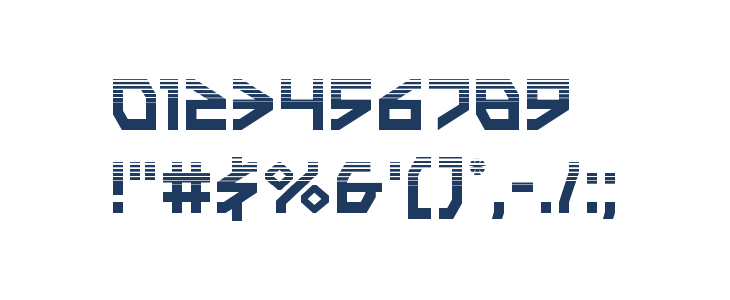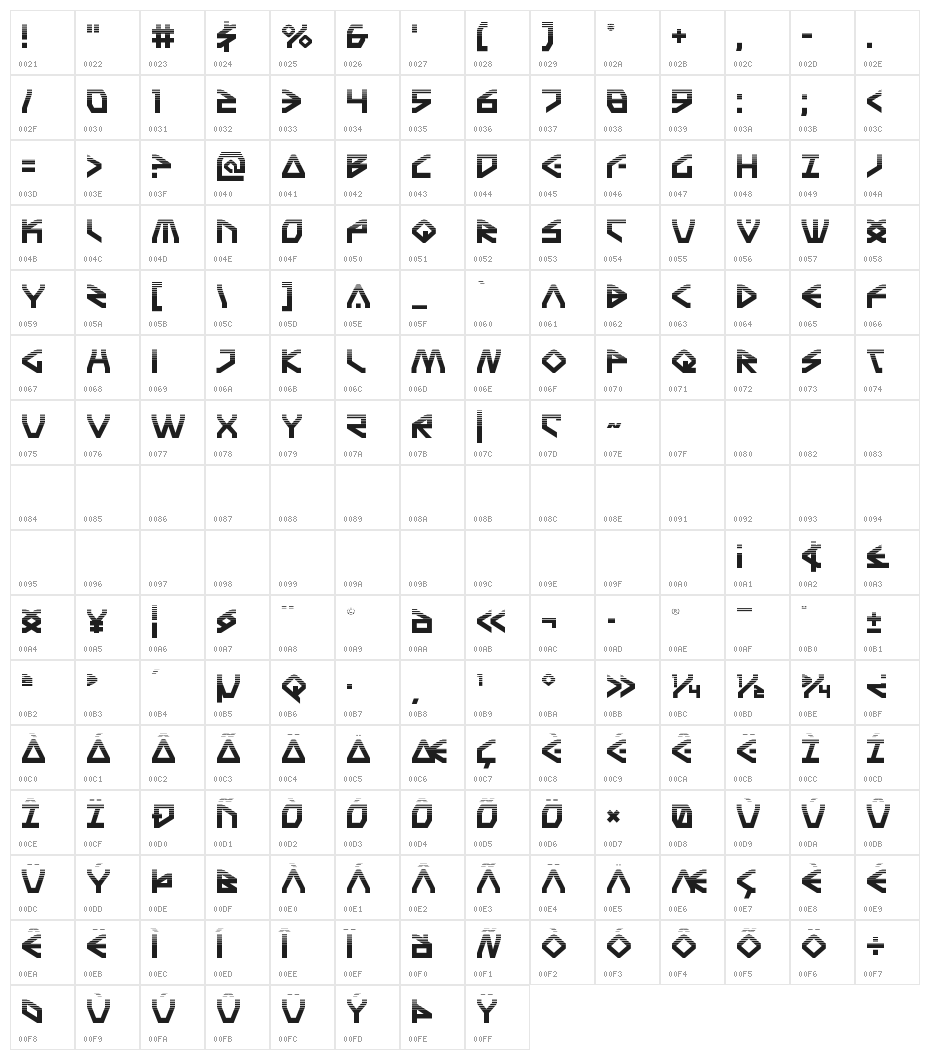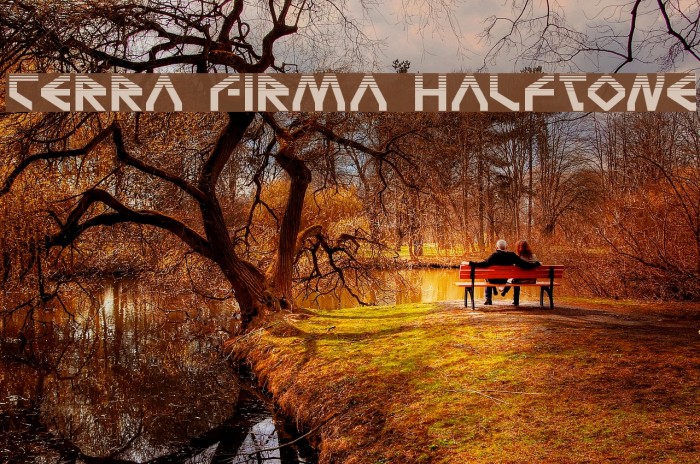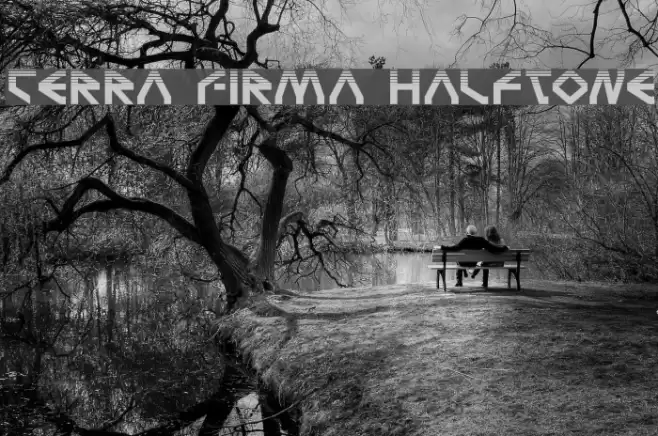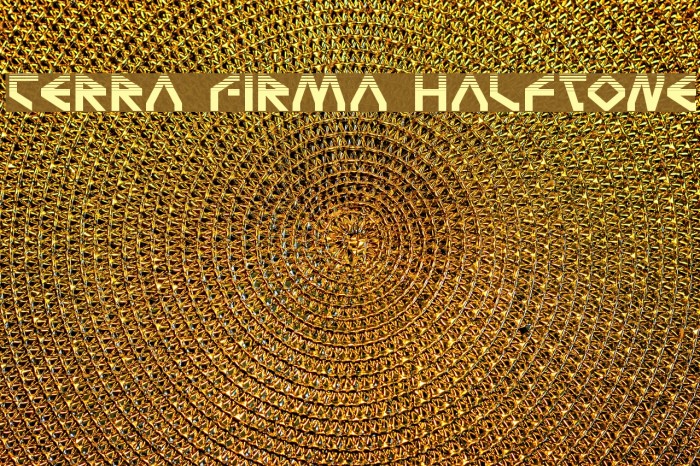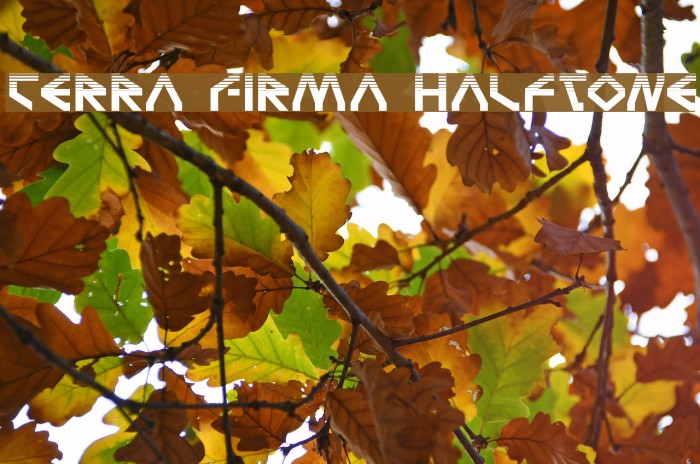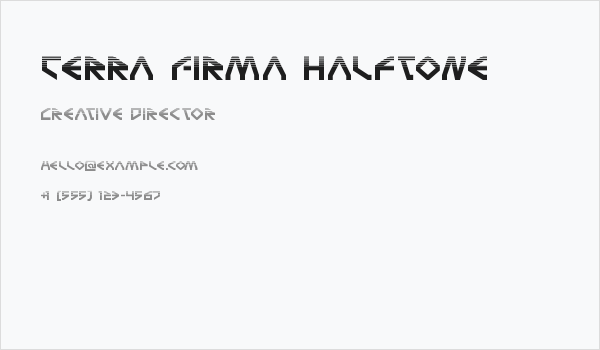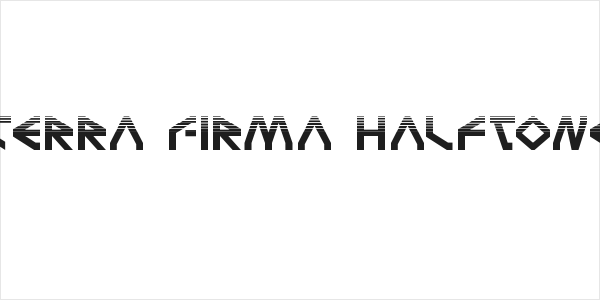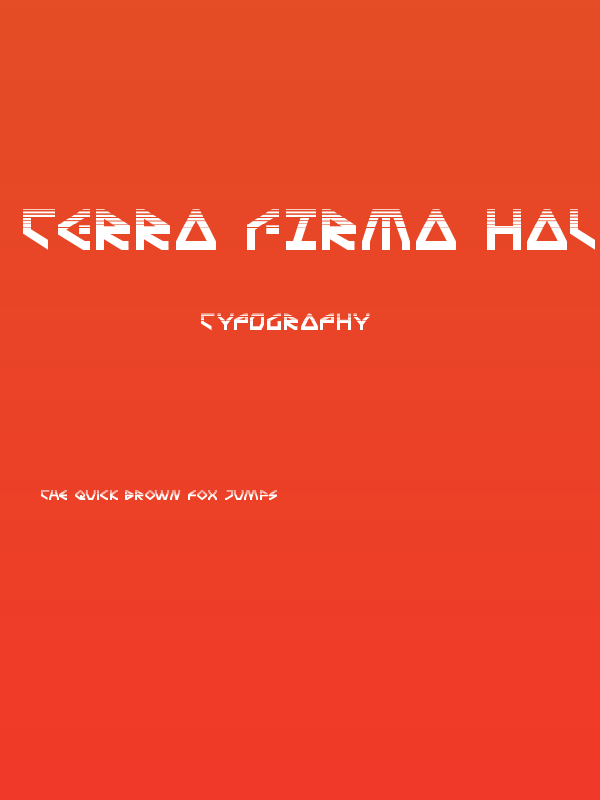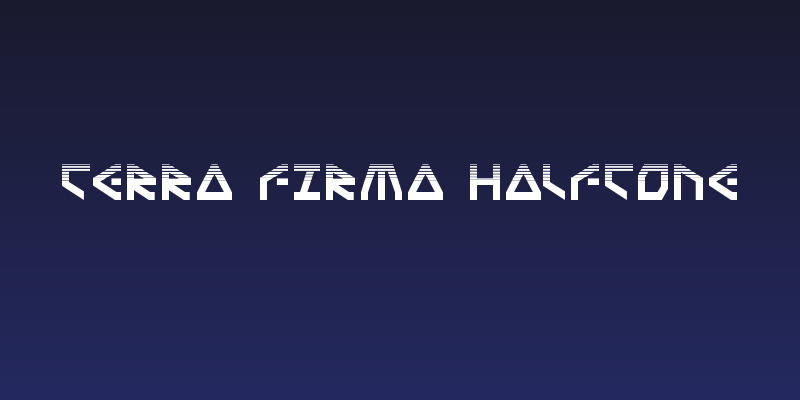
Terra Firma Halftone Font
Terra Firma Halftone Description
This font features a bold, futuristic design with a distinct halftone effect. Each character is constructed with a series of horizontal lines that create a sense of movement and dynamism. The geometric shapes and sharp angles give it a modern, edgy appearance. The uppercase and lowercase letters maintain a consistent style, with numbers and special characters following suit. The halftone pattern adds a unique texture, making it stand out in digital and print media. This font is ideal for projects that require a strong visual impact and a contemporary feel.
| Proposed Projects | Ideal for sci-fi themed designs, video game graphics, posters, and branding that requires a modern and edgy look. |